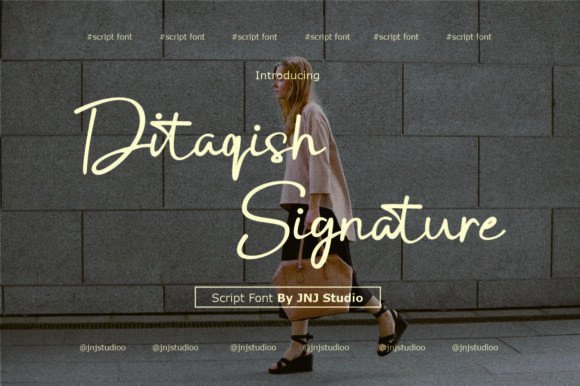
The Art of Significance: Introducing Ditaqish Signature Font
Have you ever sat down with a pen and paper, trying to put your thoughts into words, only to find that the written word falls short of the emotion you’re trying to convey? This is where the Ditaqish Signature Font comes in – a beautiful, elegant font that captures the essence of handwritten artistry and adds a touch of personality to your designs.
Whether you’re a seasoned designer or a creative enthusiast, the Ditaqish Signature Font is a valuable addition to your toolkit. Its smooth, flowing strokes and carefully crafted ligatures make it perfect for creating logos, branding materials, and social media posts that exude luxury and style. With its versatility, this font is equally suited for both modern and timeless aesthetics, making it a must-have for any designer looking to add a touch of sophistication to their work.
So why settle for a generic font when you can make a statement with the Ditaqish Signature Font? Its unique charm and authenticity will elevate your designs and leave a lasting impression on your audience.
Ditaqish Signature Font Key Features
- Unique Characteristics: The font features a unique, handwritten style with subtle flair and movement, making it ideal for creating personalized signatures and logos.
Ditaqish Signature Font Review
Overall, I think the Ditaqish Signature Font is an interesting addition to the world of typography. Here’s what I like about it: ✨
- Unique aesthetic: The font’s quirky, hand-drawn feel sets it apart from more traditional serif and sans-serif fonts.
- Good legibility: Despite its unconventional design, the font is still easy to read, making it suitable for body text and other non-headline uses.
- Expressive: The font’s expressive nature makes it perfect for creative projects where you want to add a touch of personality.
- Not ideal for headlines: While the font is great for body text, it may not be the best choice for headlines due to its relatively small x-height and lack of emphasis.
- Limited language support: The font’s design may not translate well to non-Latin scripts, which could limit its use in multilingual projects.
- Not suitable for small sizes: The font’s quirky design may become illegible when used at small sizes, so be sure to test it before using it in your project.
Overall, I think the Ditaqish Signature Font is a great choice for projects where you want to add a touch of personality and whimsy. Just be mindful of its limitations and use it in contexts where it will shine.
Tips for Getting the Most Out of the Ditaqish Signature Font
Use the Ditaqish Signature Font to add a touch of elegance and sophistication to your designs.
Experiment with different font sizes and styles to create a unique and eye-catching look.
Pair the Ditaqish Signature Font with other fonts to create a harmonious and balanced design.
The Ditaqish Signature Font is perfect for:
Creating business cards and resumes
Designing logos and branding materials
Adding a touch of elegance to presentations and reports